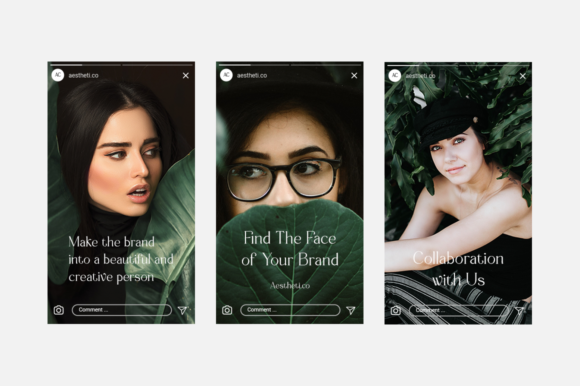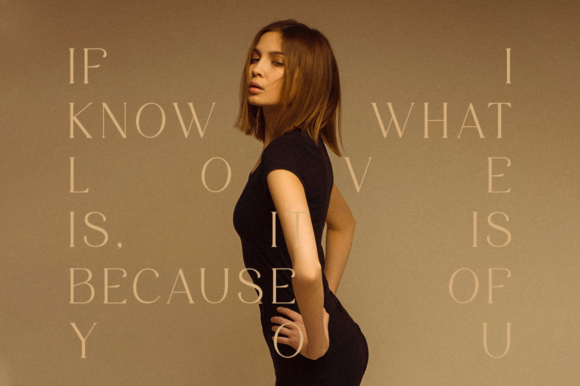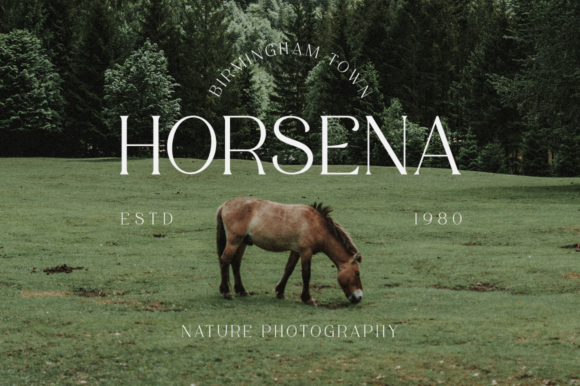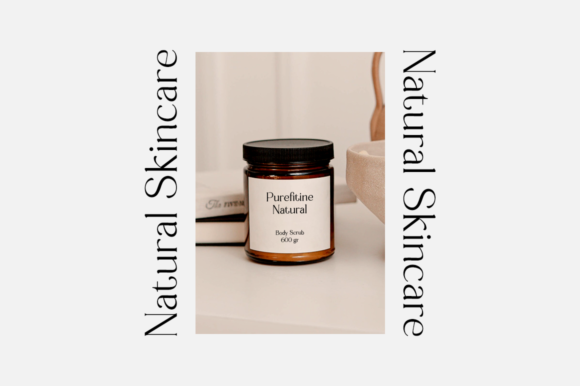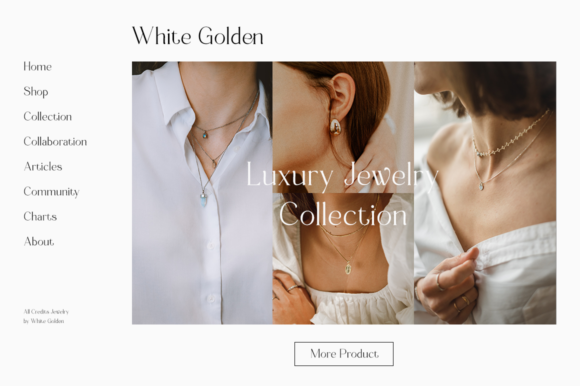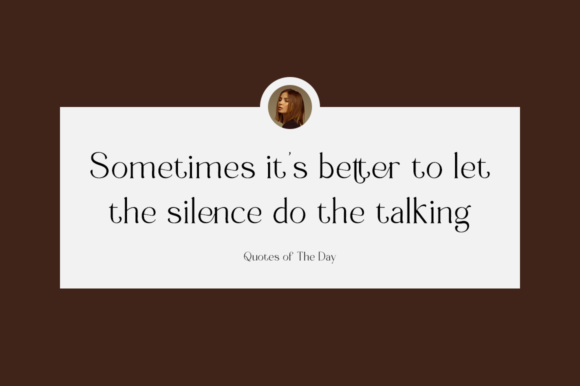
Introducing Figurative Font: Elevate Your Designs with Elegance and Authenticity
In the world of typography, a well-crafted font can make all the difference in bringing your creative ideas to life. If you’re a designer, craftsperson, or simply someone who appreciates the art of beautiful writing, you’re in luck. Meet Figurative, a distinct, elegant, and authentic serif font that’s poised to become your new favorite. In this article, we’ll dive into the world of Figurative Font, exploring its features, benefits, and uses, and why it’s a must-have for anyone looking to elevate their designs.
What is Figurative Font?
Figurative is a thoughtfully designed serif font that exudes sophistication and refinement. Its classic design is rooted in traditional typography, yet it boasts a unique character that sets it apart from more generic fonts. With its elegant lines, precise curves, and attention to detail, Figurative Font is the perfect choice for projects that demand a touch of luxury and sophistication.
Key Features of Figurative Font
- Distinct and Elegant Design: Figurative Font features a distinctive and elegant design that’s sure to capture attention. Its serif lines and curves are carefully crafted to create a sense of refinement and poise.
- Authentic and Traditional Feel: Despite its modern twist, Figurative Font remains true to traditional typography. Its authentic feel makes it perfect for projects that require a classic, timeless look.
- High Versatility: Whether you’re working on a logo, branding project, or simply need a font for your blog or website, Figurative Font is incredibly versatile. Its range of applications is limited only by your imagination.
- Exceptional Legibility: A key feature of any great font is legibility, and Figurative Font excels in this regard. Its clear and precise letterforms ensure that your text remains easy to read, even at smaller sizes.
Benefits of Using Figurative Font
So why choose Figurative Font for your next project? Here are just a few benefits you can expect:
- Elevate Your Brand: With Figurative Font, you can instantly elevate your brand’s visual identity. Its sophisticated design and classic feel make it perfect for businesses and individuals looking to project a sense of elegance and refinement.
- Stand Out from the Crowd: In a world where generic fonts are a dime a dozen, Figurative Font offers a refreshing alternative. Its unique character and distinctive design ensure that your text will stand out from the crowd.
- Enhance Readability: As mentioned earlier, Figurative Font boasts exceptional legibility. This makes it perfect for body text, articles, and other written content where readability is key.
- Limitless Creative Possibilities: Whether you’re a designer, craftsperson, or DIY enthusiast, Figurative Font offers limitless creative possibilities. Use it for logos, branding, packaging, or simply to add a touch of elegance to your digital or print projects.
Who Can Benefit from Figurative Font?
Figurative Font is an incredibly versatile typeface that can benefit a wide range of individuals and businesses. Here are just a few examples:
- Graphic Designers: If you’re a graphic designer looking for a sophisticated font to add to your arsenal, Figurative Font is an excellent choice. Its classic design and exceptional legibility make it perfect for a wide range of projects.
- Crafters and DIY Enthusiasts: If you enjoy crafting, scrapbooking, or other DIY activities, Figurative Font can add a touch of elegance to your projects. Use it for titles, headings, or simply to add a decorative element to your work.
- Business Owners: If you’re looking for a font to represent your brand, Figurative Font is an excellent choice. Its sophisticated design and classic feel make it perfect for businesses that want to project a sense of elegance and refinement.
In conclusion, Figurative Font is a distinct, elegant, and authentic serif font that’s poised to become a true favorite among designers, craftspersons, and anyone looking to elevate their creative projects. With its exceptional legibility, high versatility, and limitless creative possibilities, Figurative Font is the perfect choice for anyone looking to add a touch of sophistication and refinement to their work. So why wait? Discover the power of Figurative Font today and take your designs to the highest level!